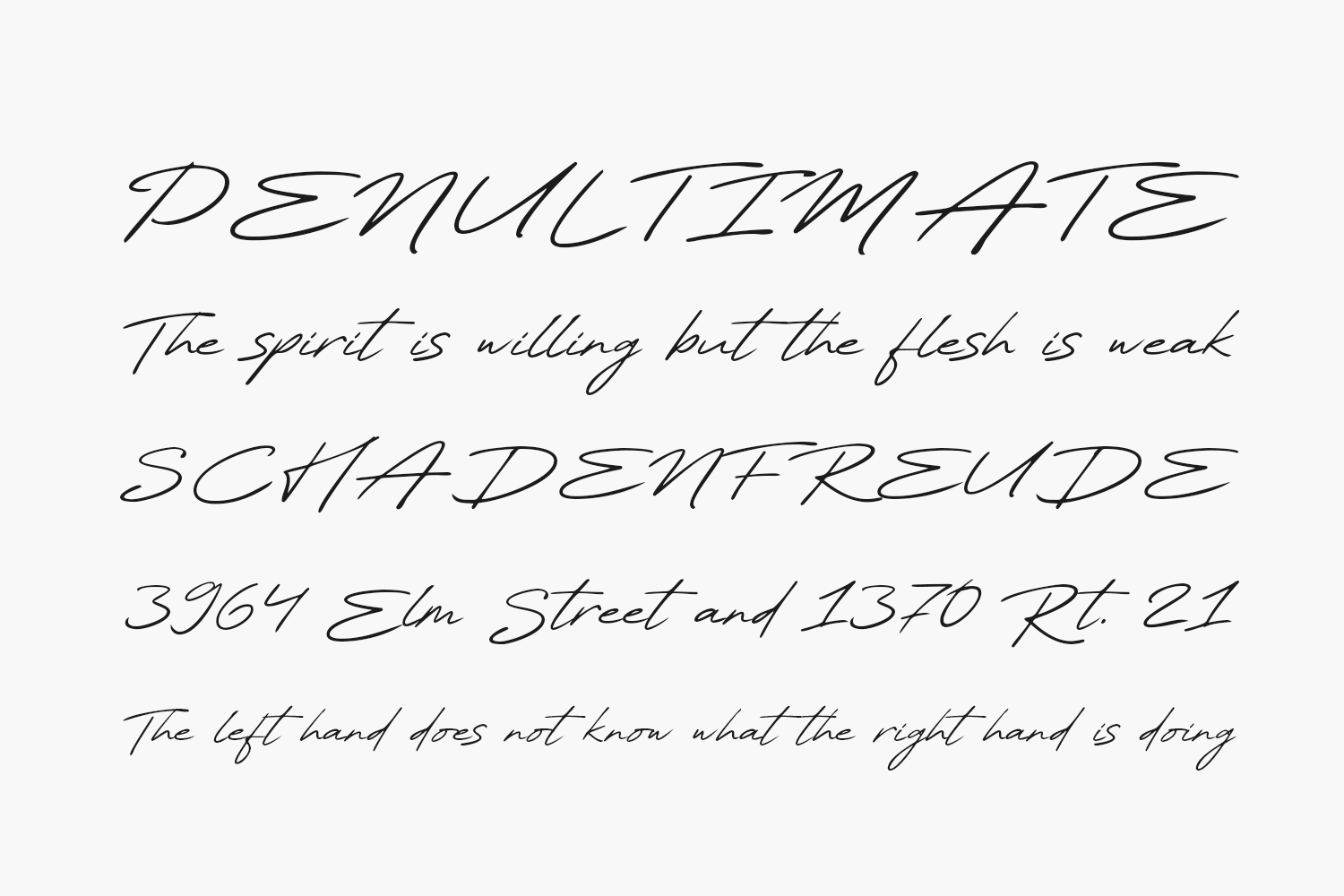
Kind Regards Free Font is a sophisticated and contemporary script font that combines clean lines with a stylish and elegant design. This versatile font is a perfect choice for a wide range of projects, including posters, logos, magazines, book covers, banners, and more. Infuse your designs with a touch of elegance and charm using this amazing font. Its versatility allows it to seamlessly blend with a vast array of projects, ensuring that your creative ideas truly shine. Add Kind Regard to your design toolkit and witness how it effortlessly elevates your creations, making them stand out with its timeless appeal. Kind Regards Free Font is free for personal use only. Please purchase the full version for commercial use.